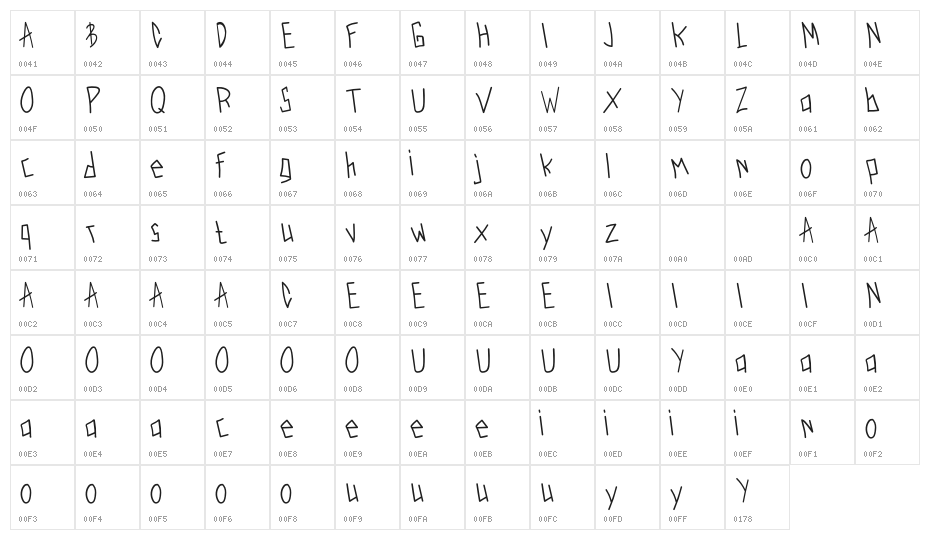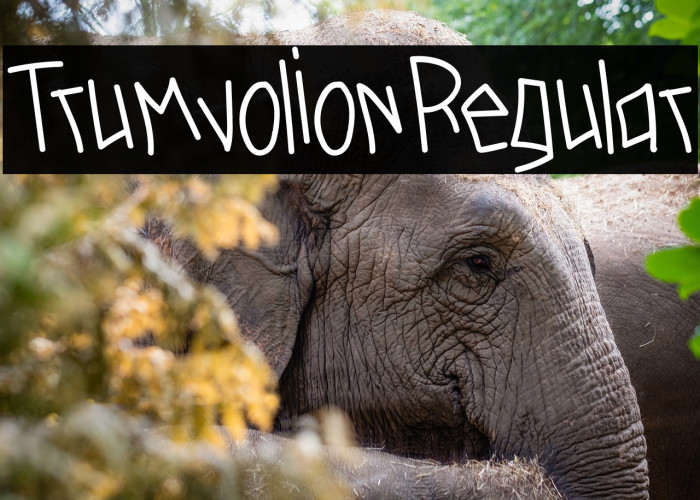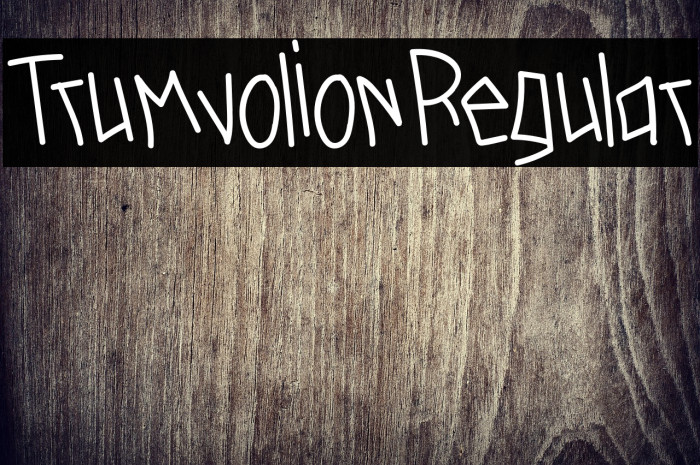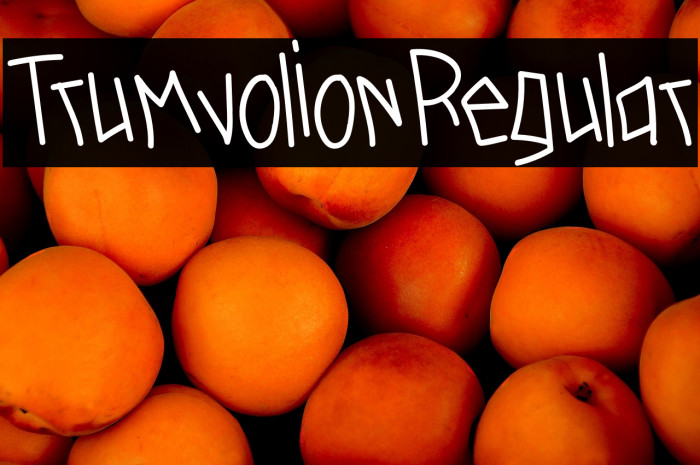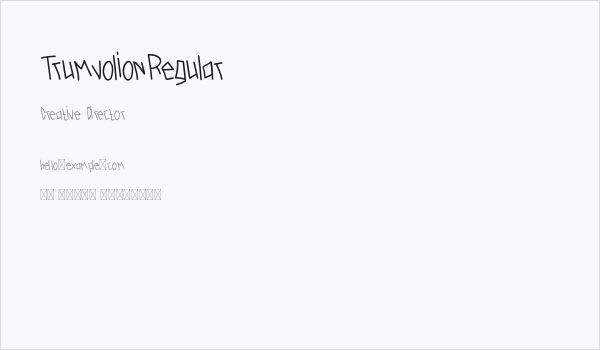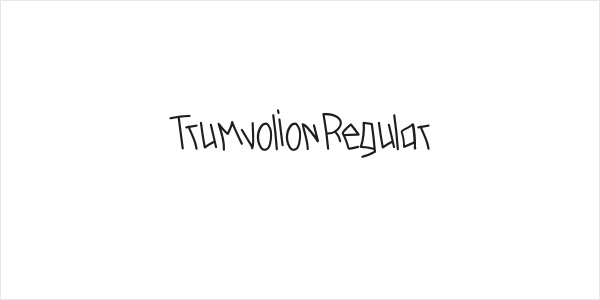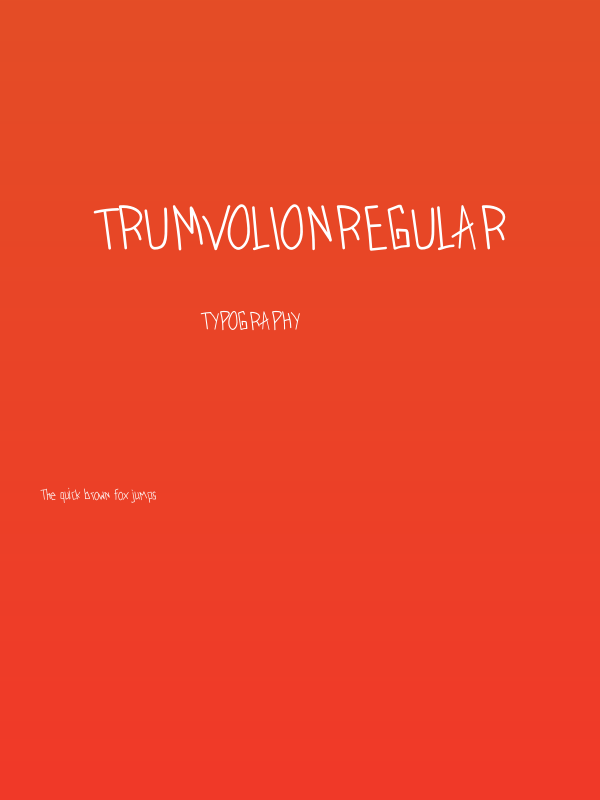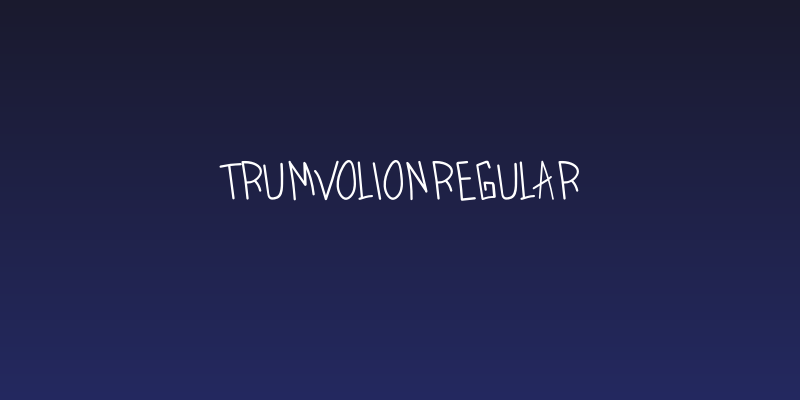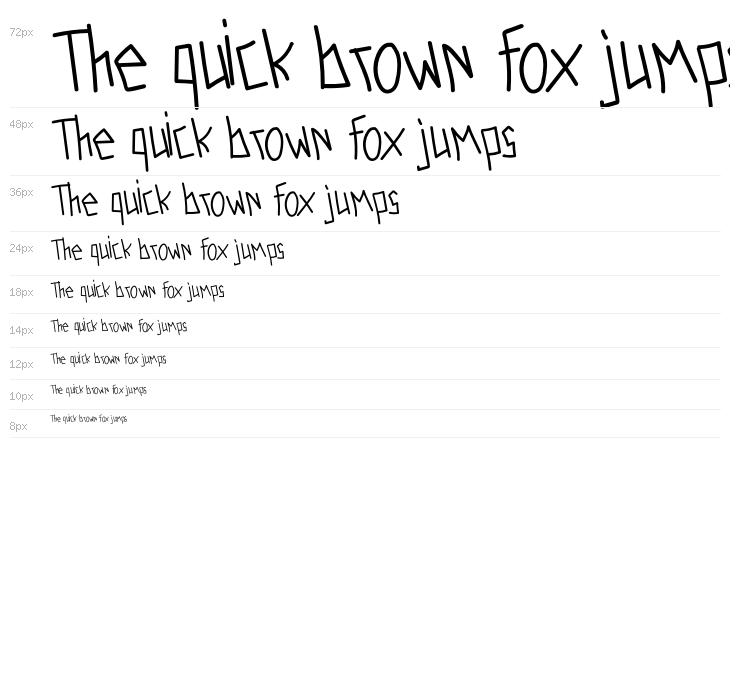
TrumvolionRegular Font
TrumvolionRegular Description
This font features a unique, hand-drawn style with irregular, playful strokes that give it a whimsical and artistic appearance. The letters are tall and narrow, with varying line thicknesses that add a dynamic and lively feel. The uppercase and lowercase letters maintain a consistent style, with quirky angles and curves that make each character distinct. The font's overall look is informal and creative, making it suitable for projects that require a personal touch. The absence of traditional serifs and the irregularity in character shapes contribute to its distinctive, modern aesthetic.
| Overall Style | Artistic |
| Use Case | Logos, Posters, Creative projects |
| Proposed Projects | Ideal for children's book covers, creative posters, artistic branding, and informal invitations. |